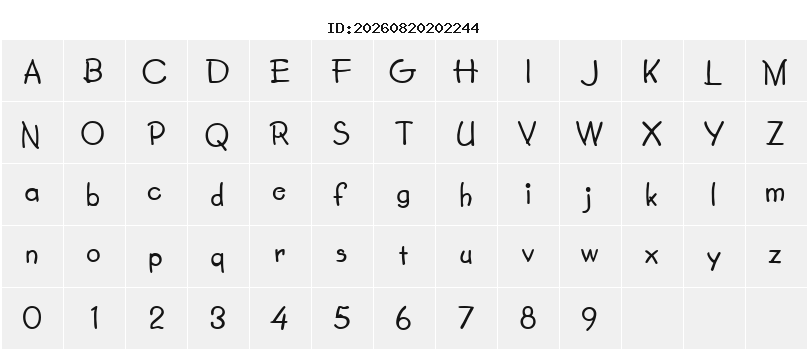
Second Grader Preview
• Font Name: Second Grader
• Full Font Name: Second Grader
About Second Grader.ttf
Second Grader.ttf is a modern, elegant sans-serif font designed for ultimate readability and visual harmony. Perfect for branding, headlines, web design, and print materials.